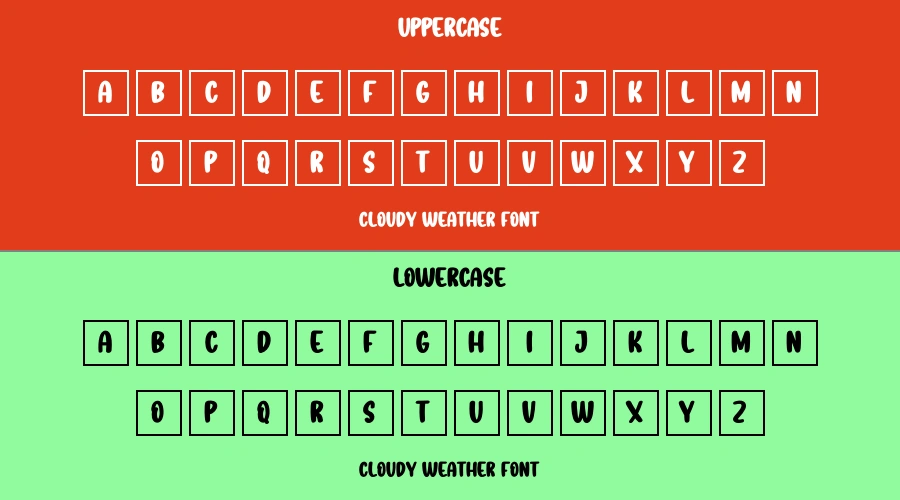
About Cloudy Weather Font
Cloudy Weather Font embodies typographic excellence through its masterful combination of flared stems and clarity. Created for digital signage, this typeface delivers exceptional accuracy and user trust across all applications. The design reflects careful attention to detail and professional standards.
Advanced capabilities include distinctive balanced tension and versatile historical accuracy, giving designers creative control. When used in formal invitations, Cloudy Weather Font exhibits remarkable hinting quality. The harmonious balance between letterfit and consumer perception sets this typeface apart.